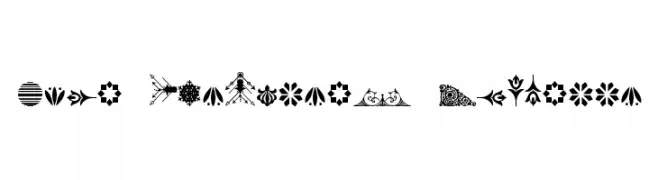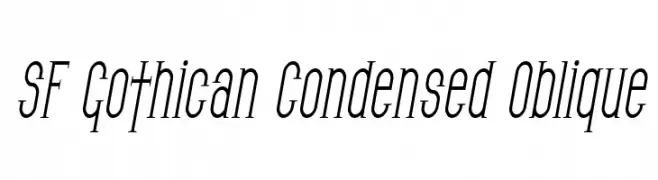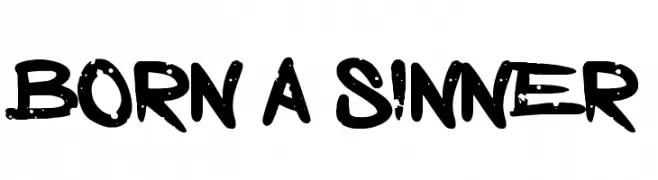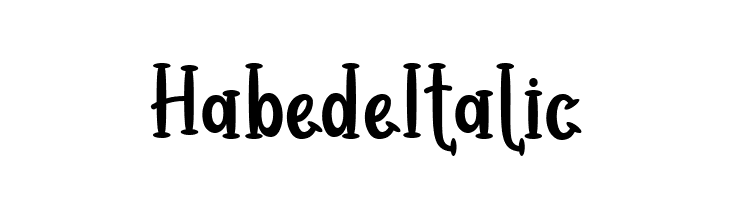
A bold, decorative font with geometric patterns and high contrast.
A decorative font inspired by Aztec motifs with intricate and stylized glyphs.
Ornamental dingbat font with diverse decorative symbols.
A sleek, oblique, and condensed font with a modern and dynamic style.
A bold, graffiti-style font with a distressed, urban look.
An elegant and modern font with unique, elongated letterforms and subtle curves.